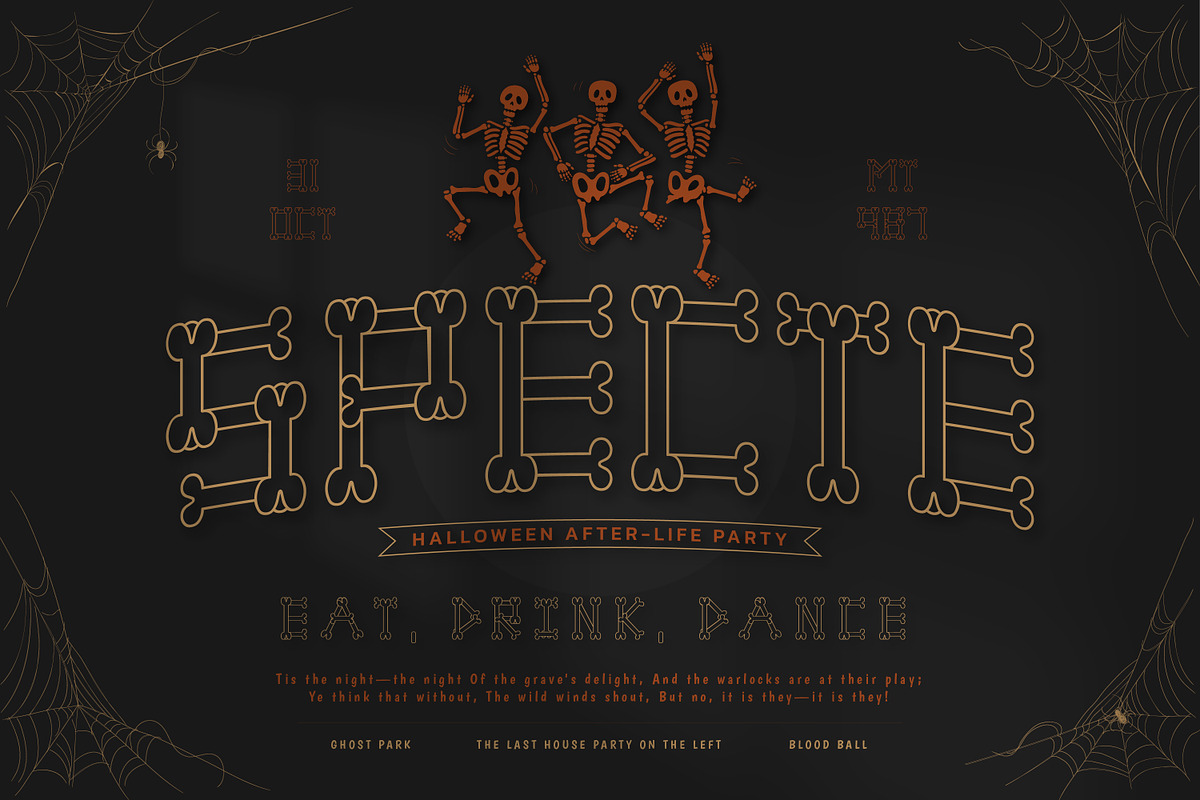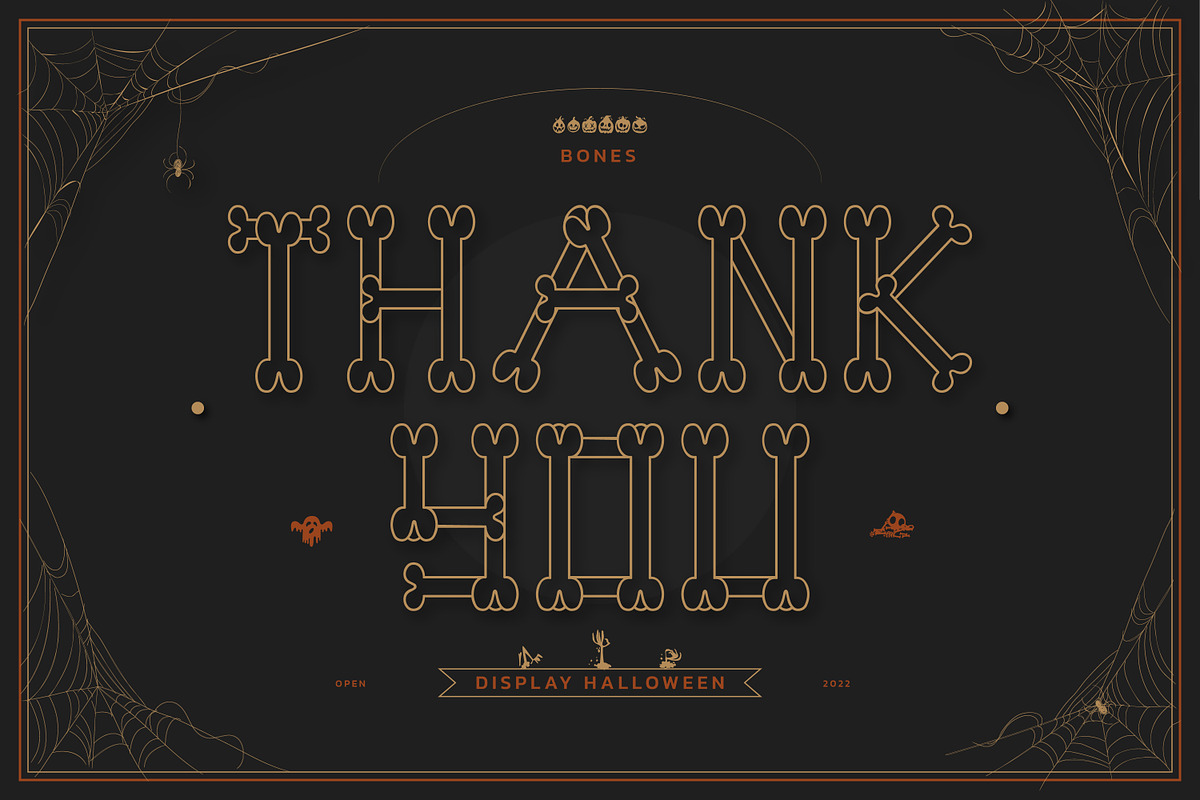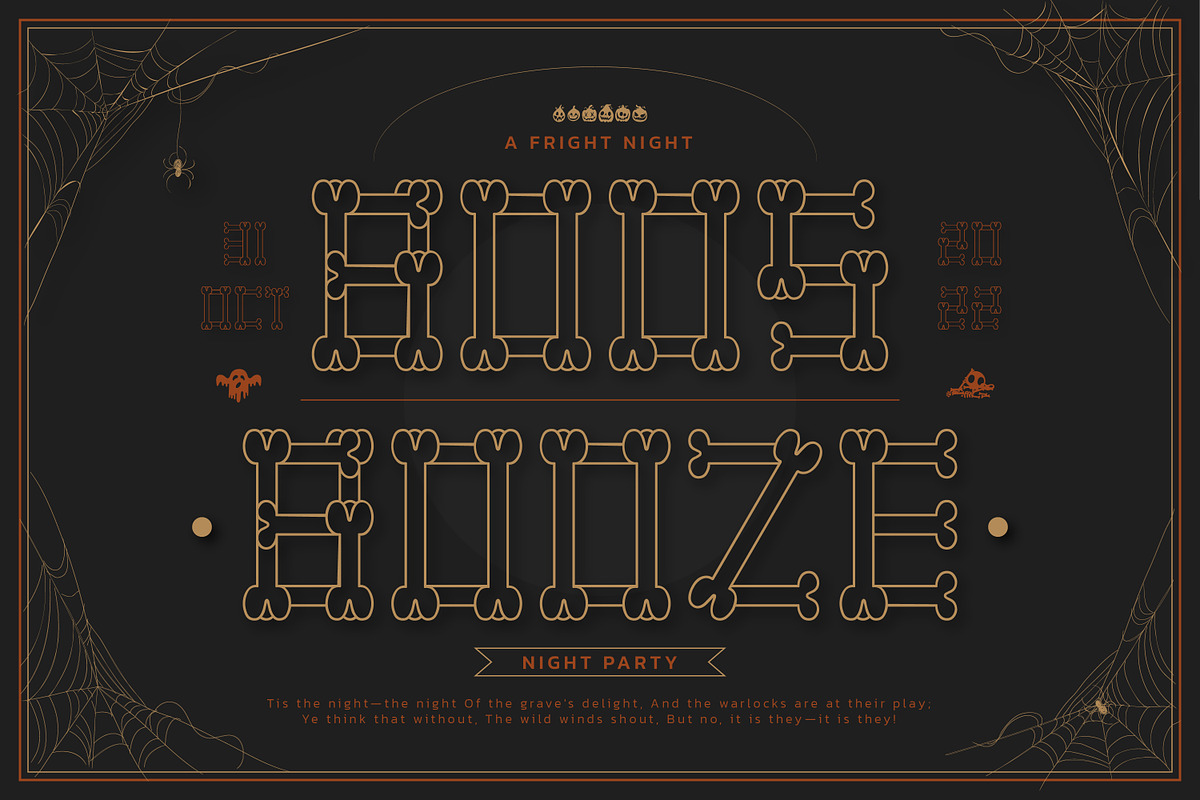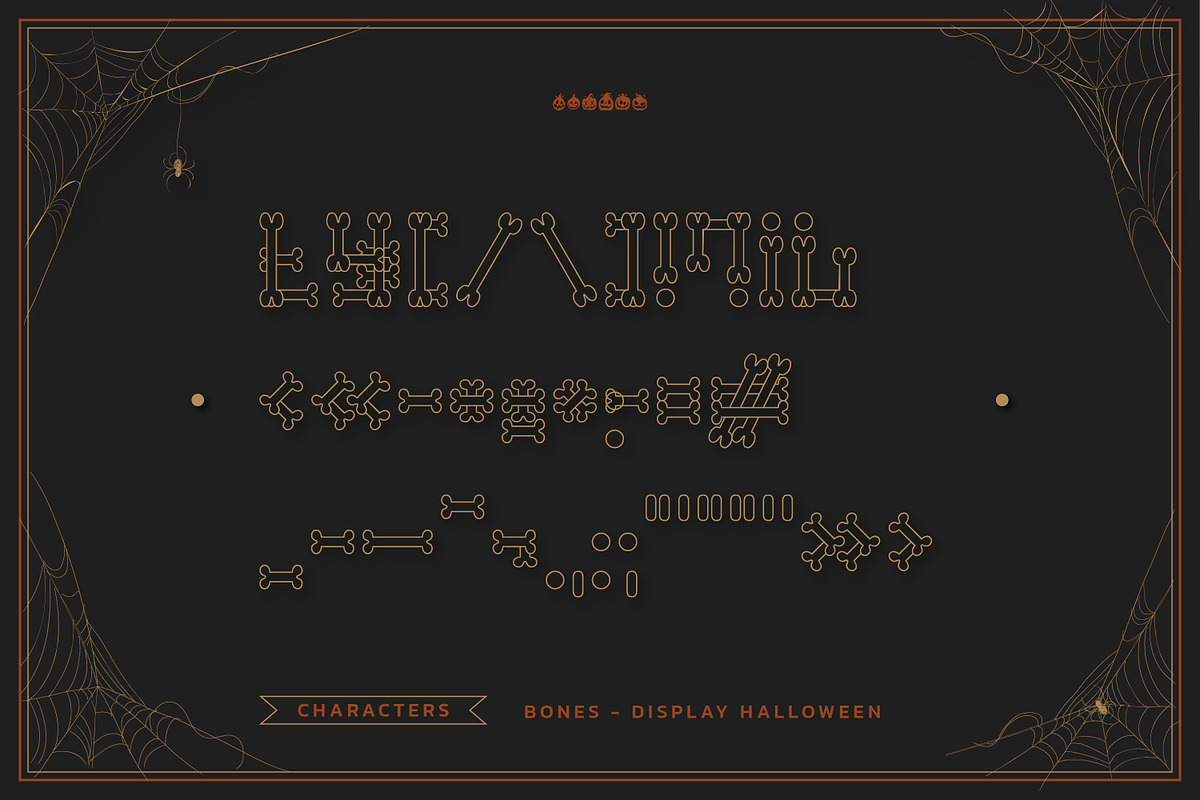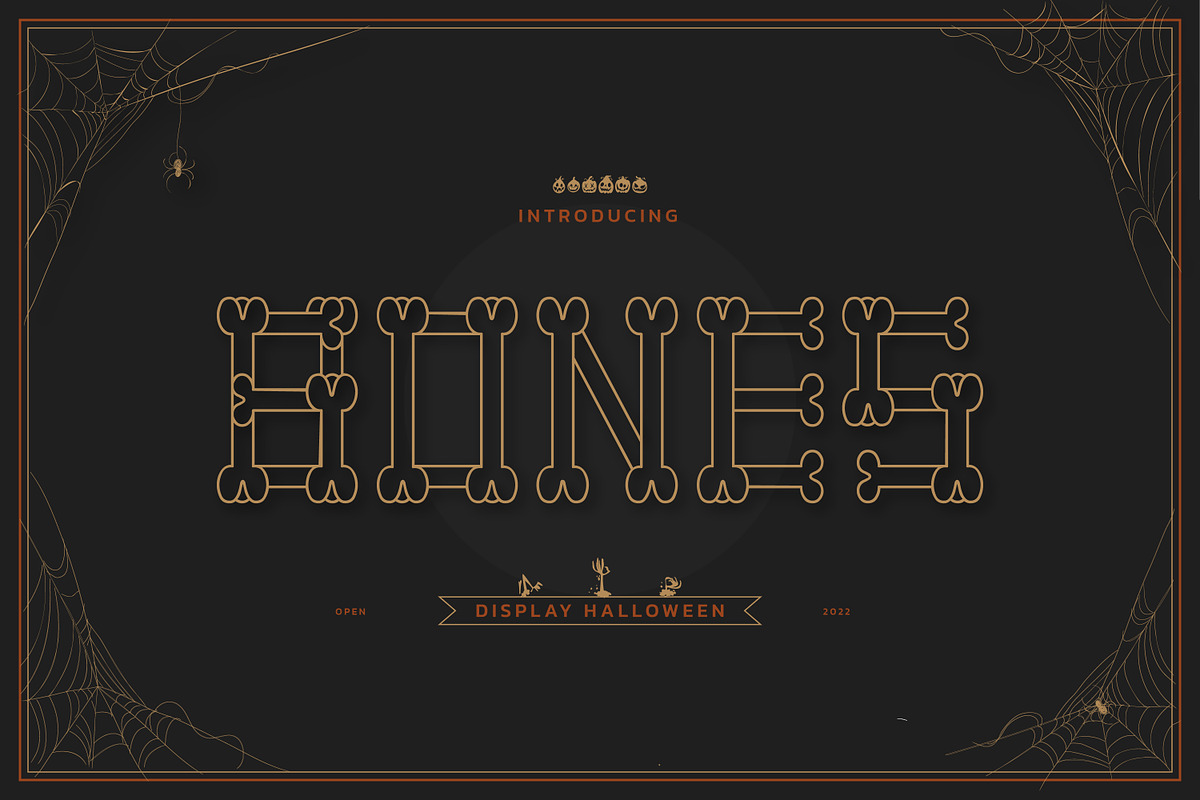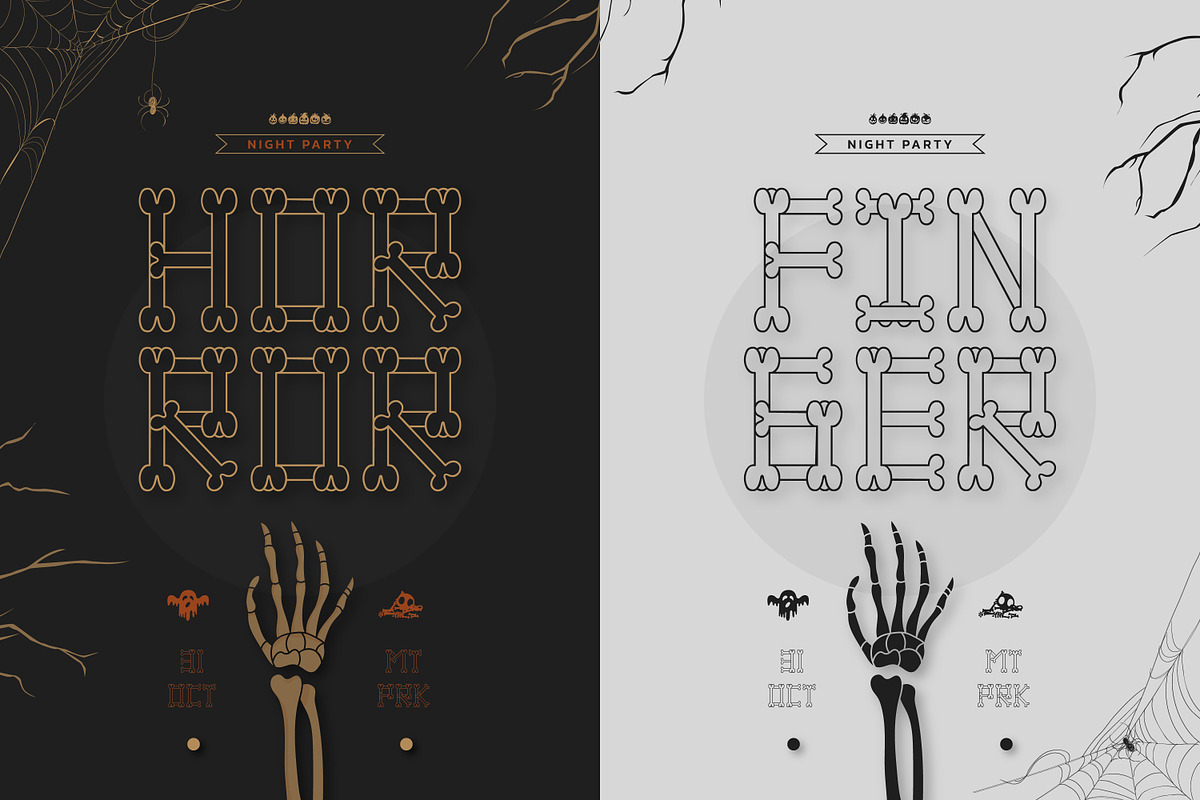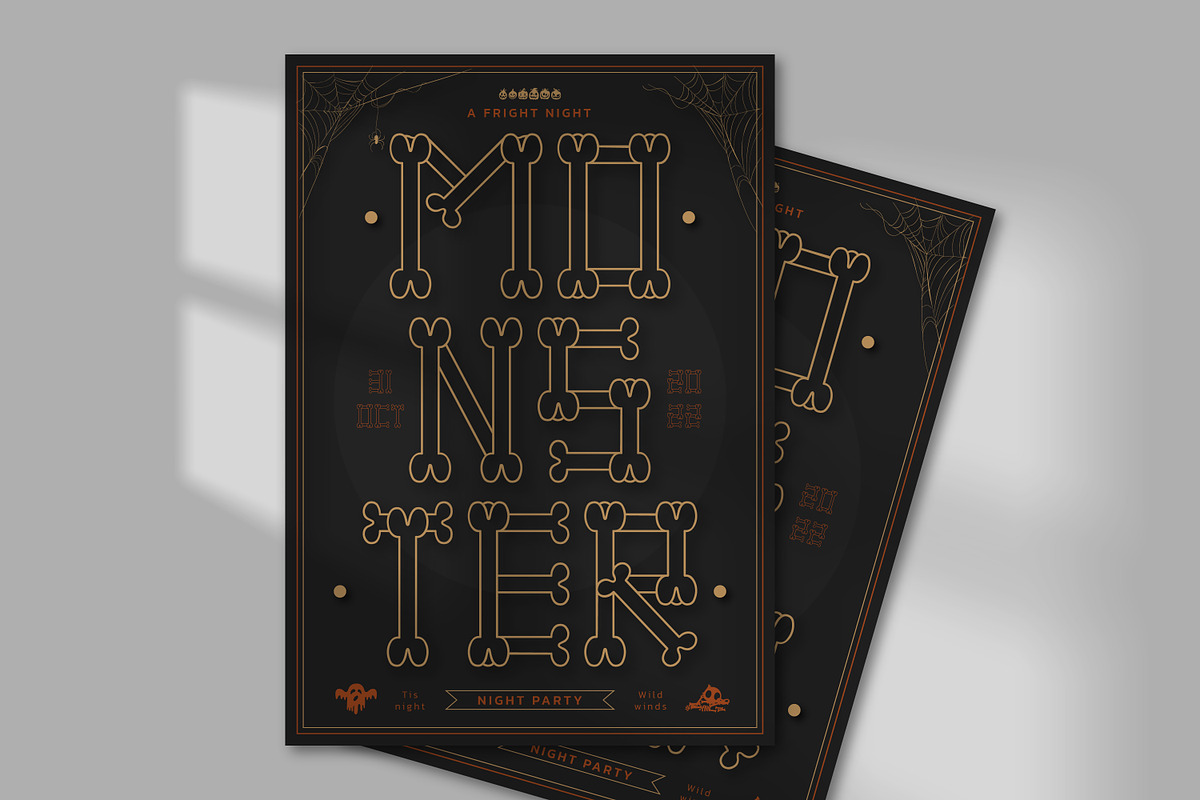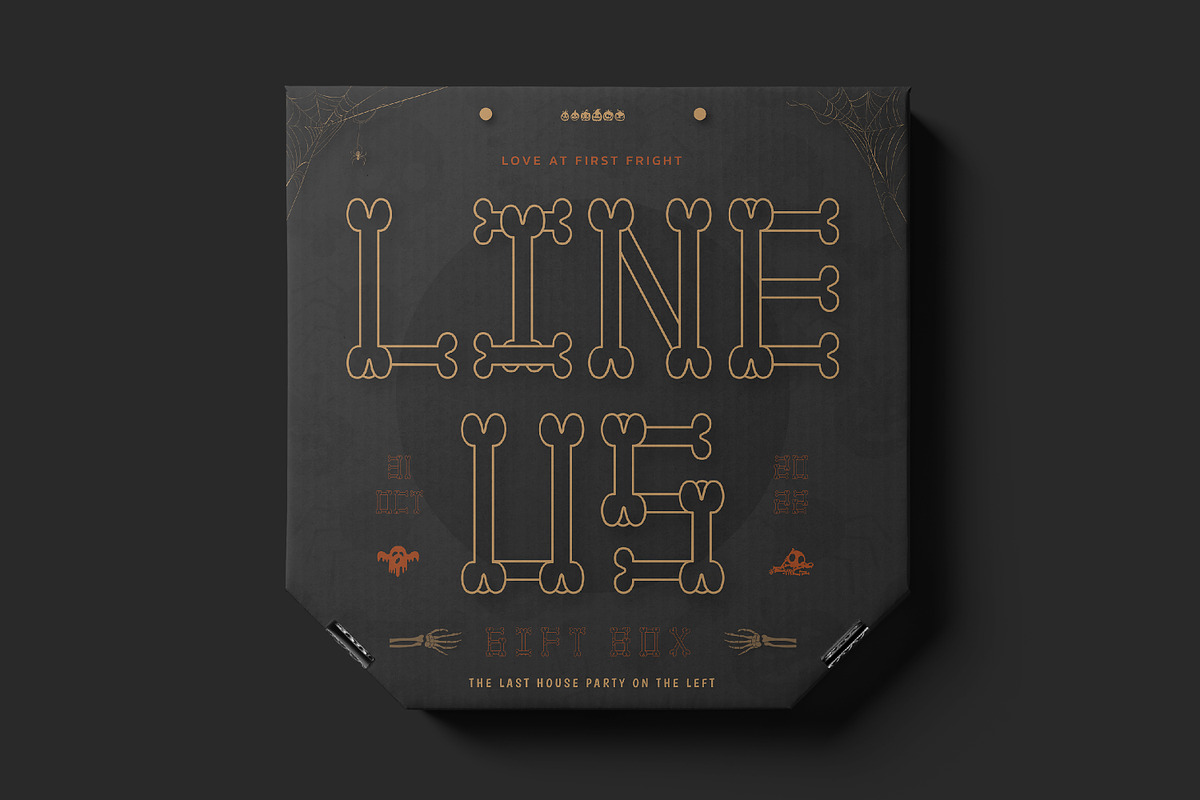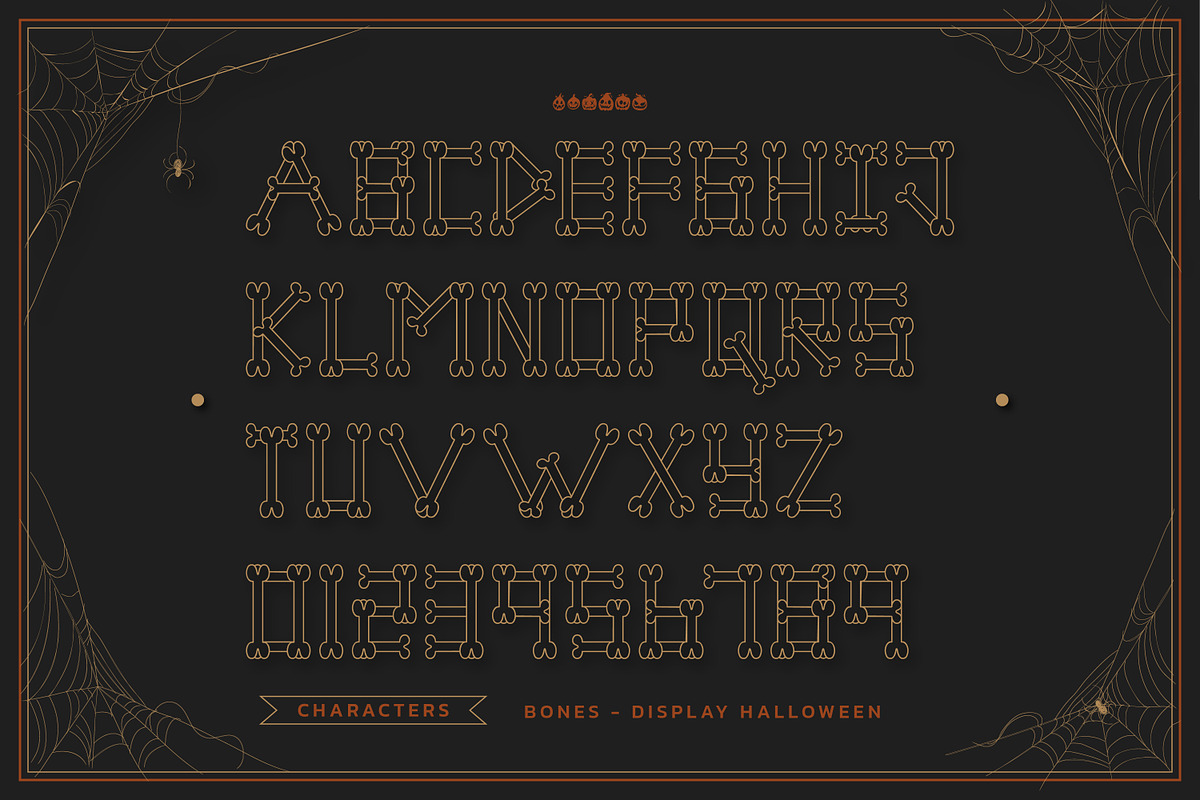
Bones Halloween Display Font
Bones is a fun and unique display font. Whimsical and mysterious, this font is perfect for all your Halloween or horror-themed projects!